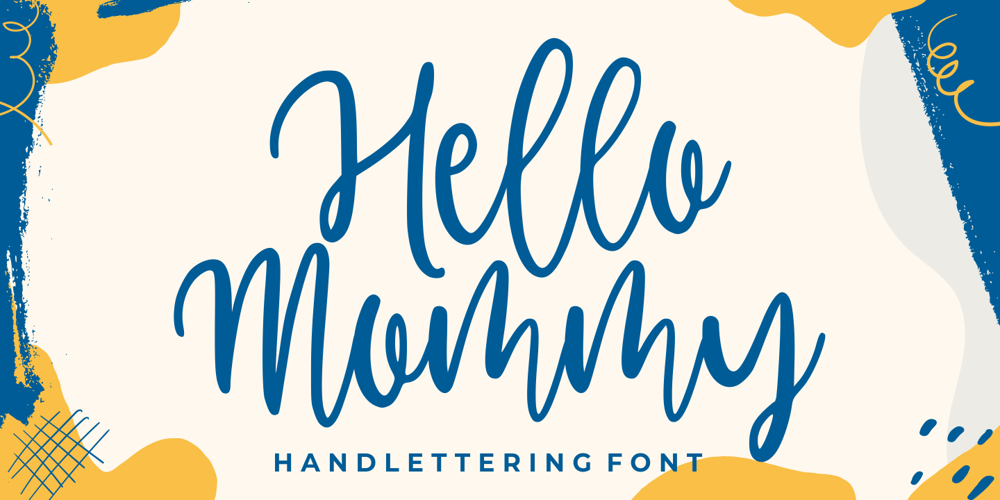
Hello Mommy Font Family was designed by Good Java and published by Good Java Studio. Hello Mommy contains 1 styles and family package options. Hello Mommy is a hand lettered script. This font includes full of Alphabetical glyphs, Numerals, and punctuation. This is so perfect for invitations, monograms, weddings, fashion, branding, labels, logotype and more.